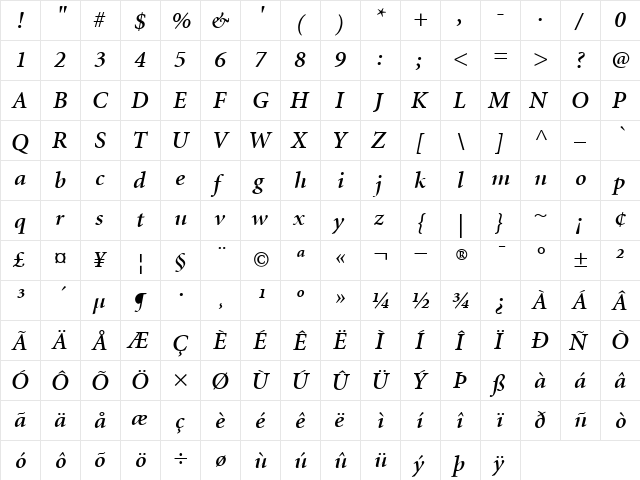
Design Context for AdobeCorporateIDMinion-SemiBold Typeface
AdobeCorporateIDMinion-SemiBold is a composed and adaptable typeface that performs quietly and consistently across a wide range of design contexts. Its italic angle brings a sense of urgency and motion to the letterforms. Its bold stroke weight gives it real presence on the page.
Pro Tip: Try AdobeCorporateIDMinion-SemiBold for annotation and caption copy alongside an upright companion — the contrast in angle creates a dynamic but ordered typographic system.